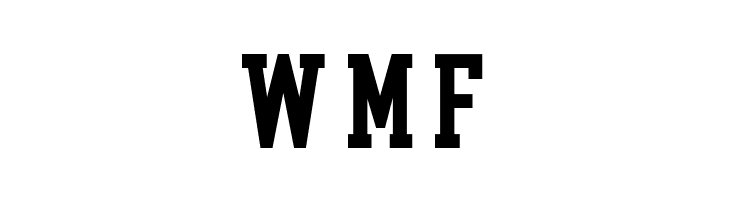
Slicker Font
A modern, geometric sans-serif font with bold, clean lines.
Aileron Black Font
A bold, modern sans-serif font with clean lines and uniform thickness.
CollegiateBlackFLF Font
A bold, block-style font reminiscent of traditional collegiate lettering.
Xpressive Font